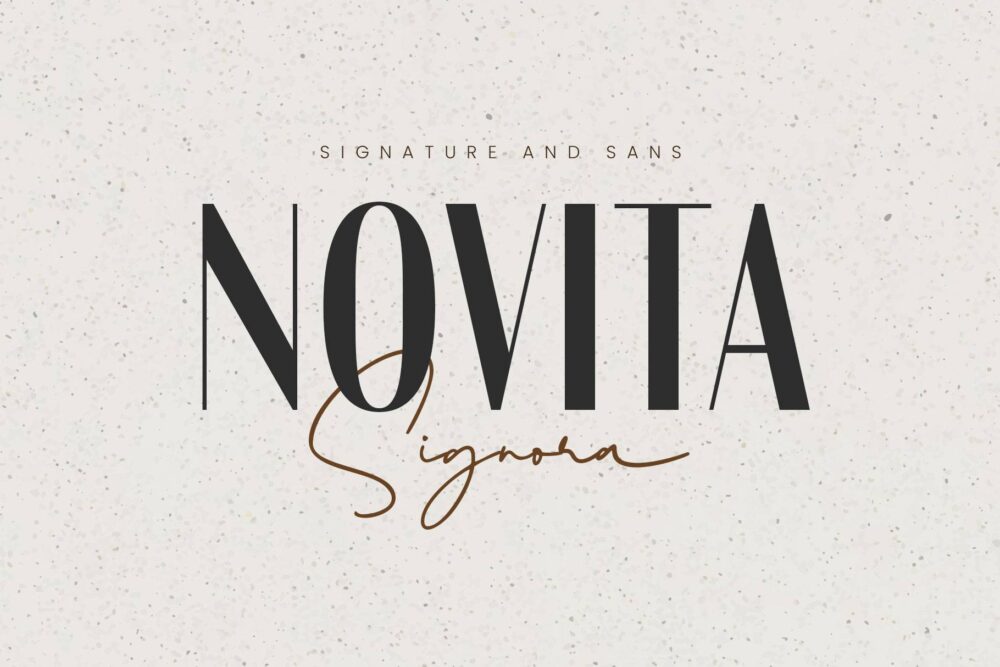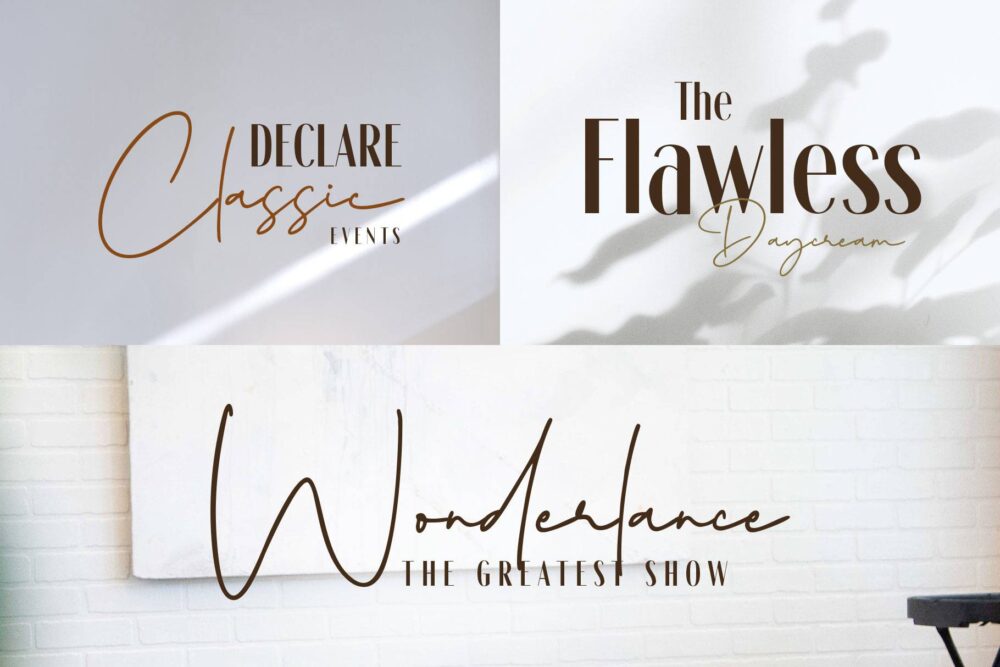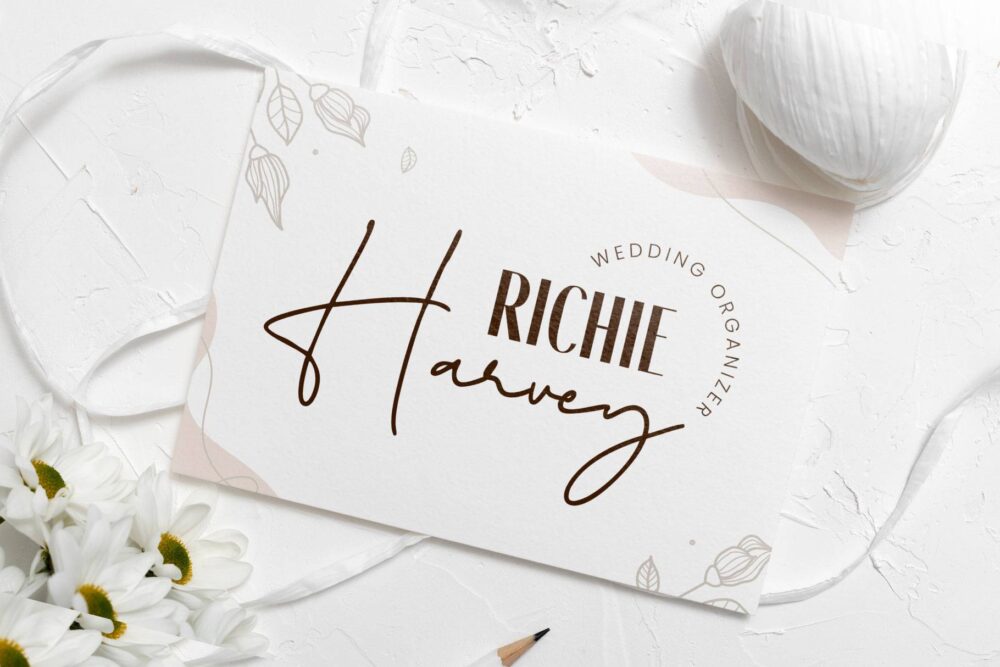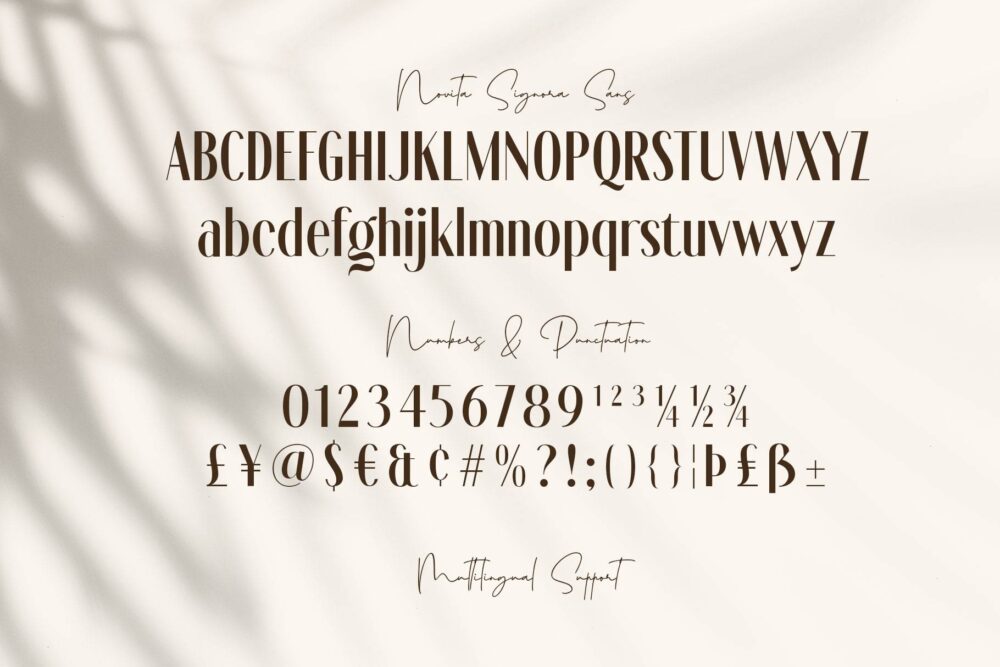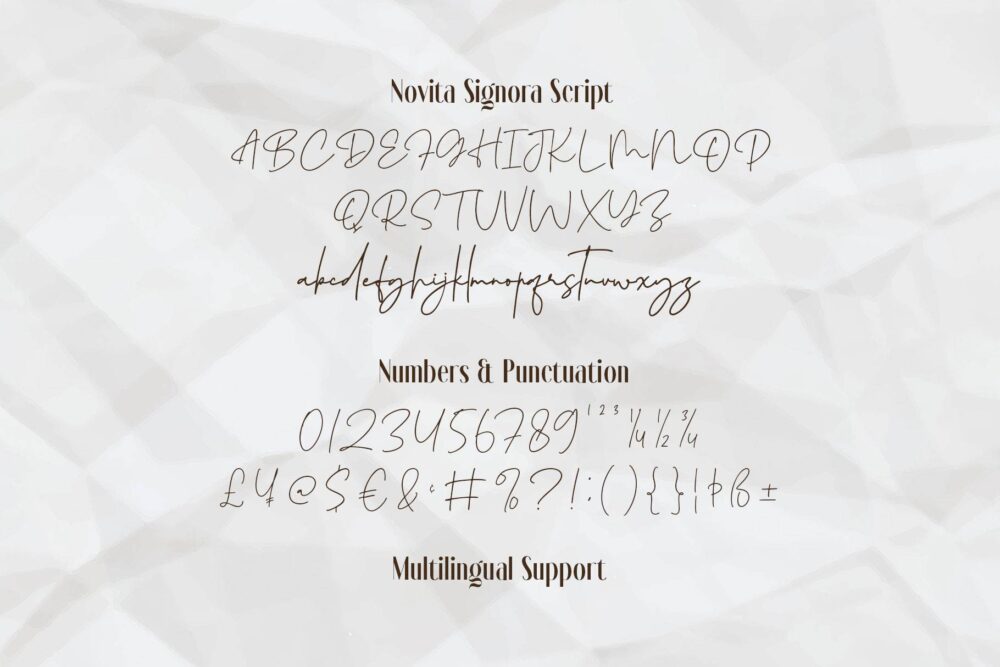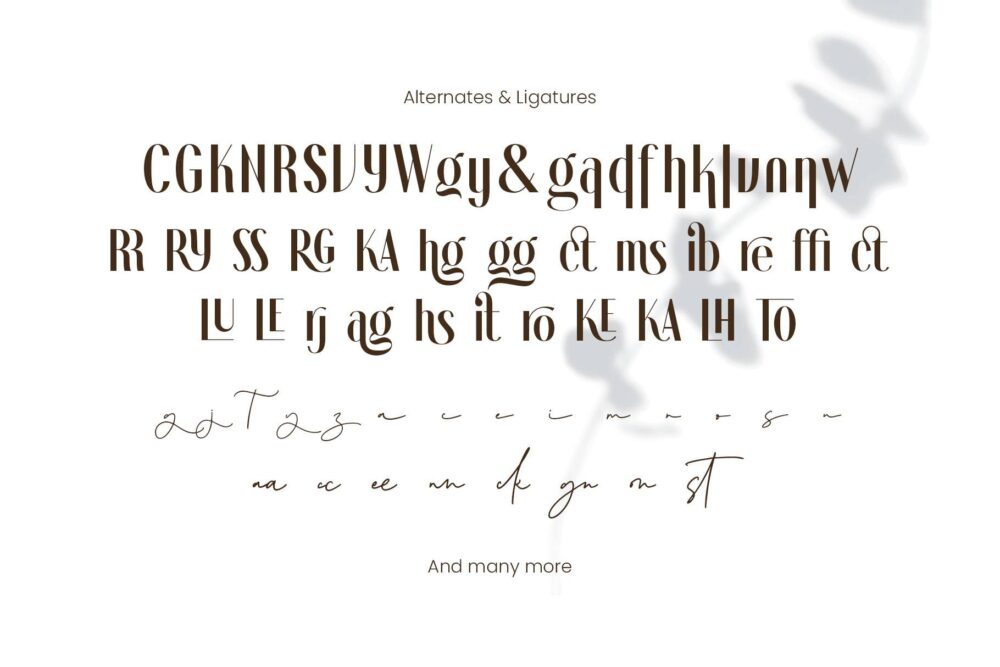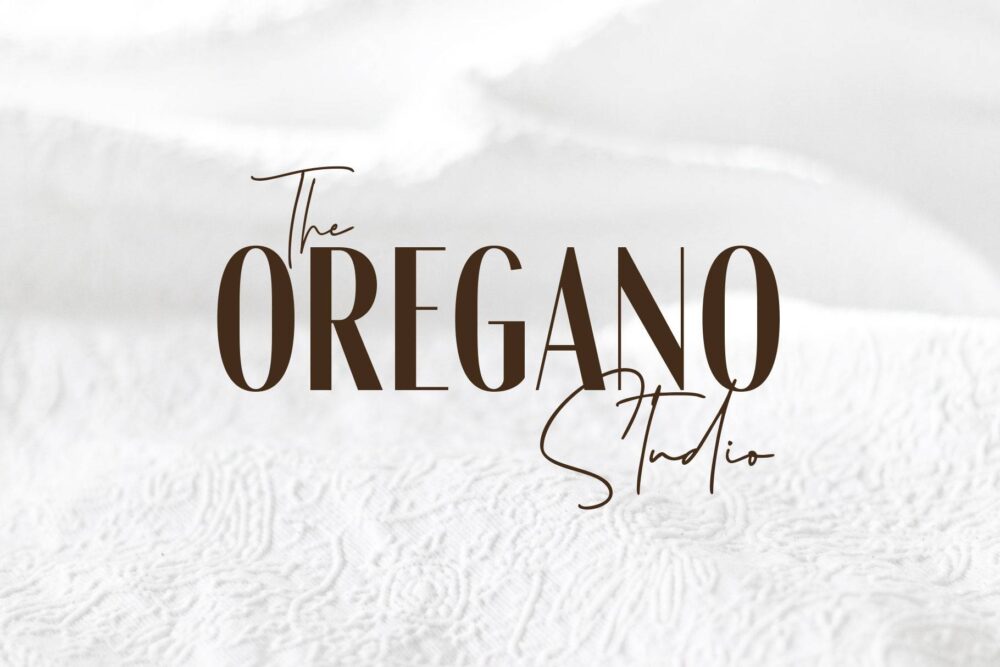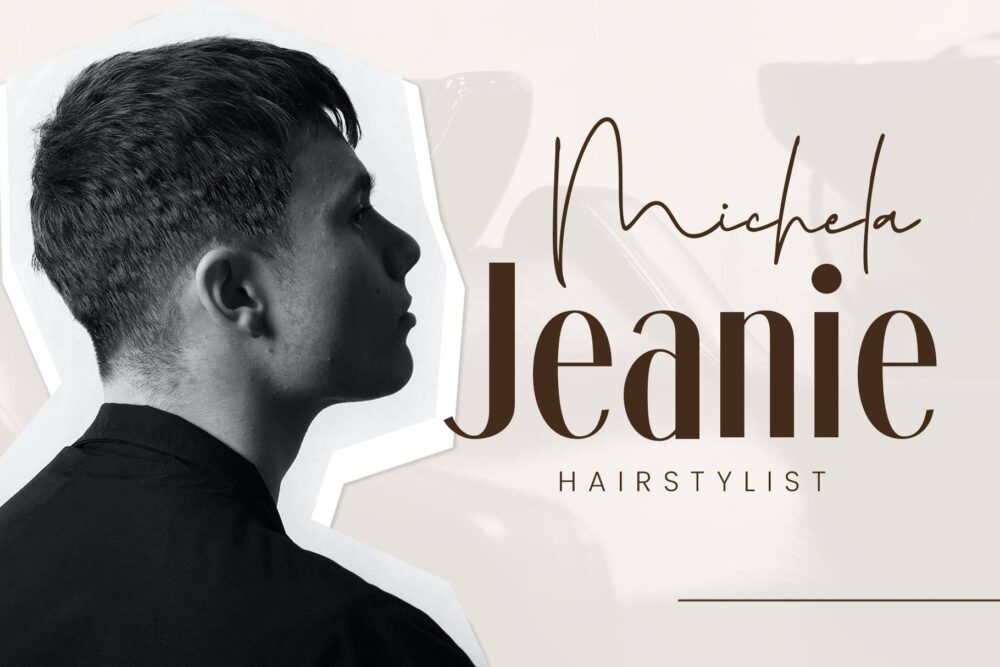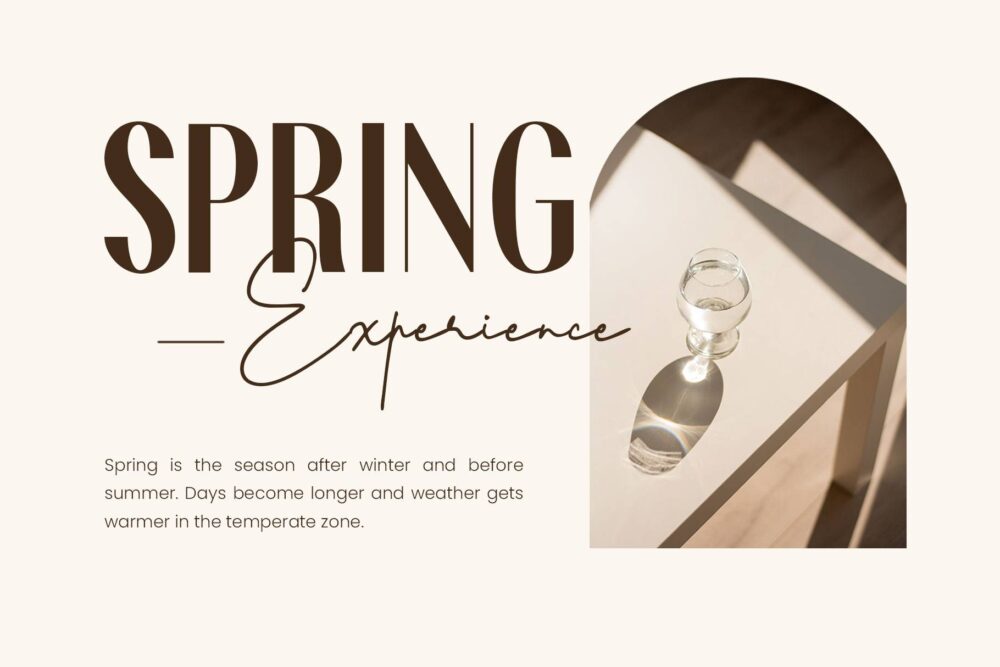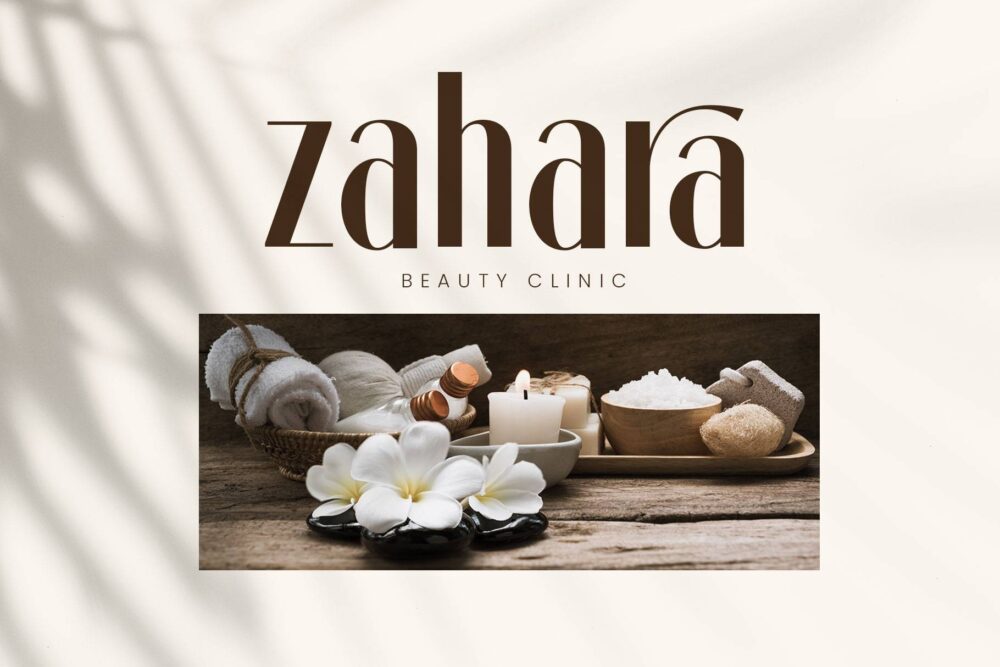
Novita Signora - Signature
Novita Signora - Sans
Proudly presents, Novita Signora Font Duo, beautiful pairs of condensed sans and signature. A modern, stylish combination. With a minimalist style and natural hand-drawn script that looks strong to stand on its own.
You can use this font combination separately as a logo, logotype, or heading, or mix and match it as an editorial, quotes, gorgeous wedding invitation, and more!
Novita Signora is PUA Encoded so that you can access the characters without any special software. Equipped with lots of alternates characters to beautify your design!
• Uppercase
• Lowercase
• Numbers & punctuations
• Stylistic alternates
• Ligatures
• Accented characters.